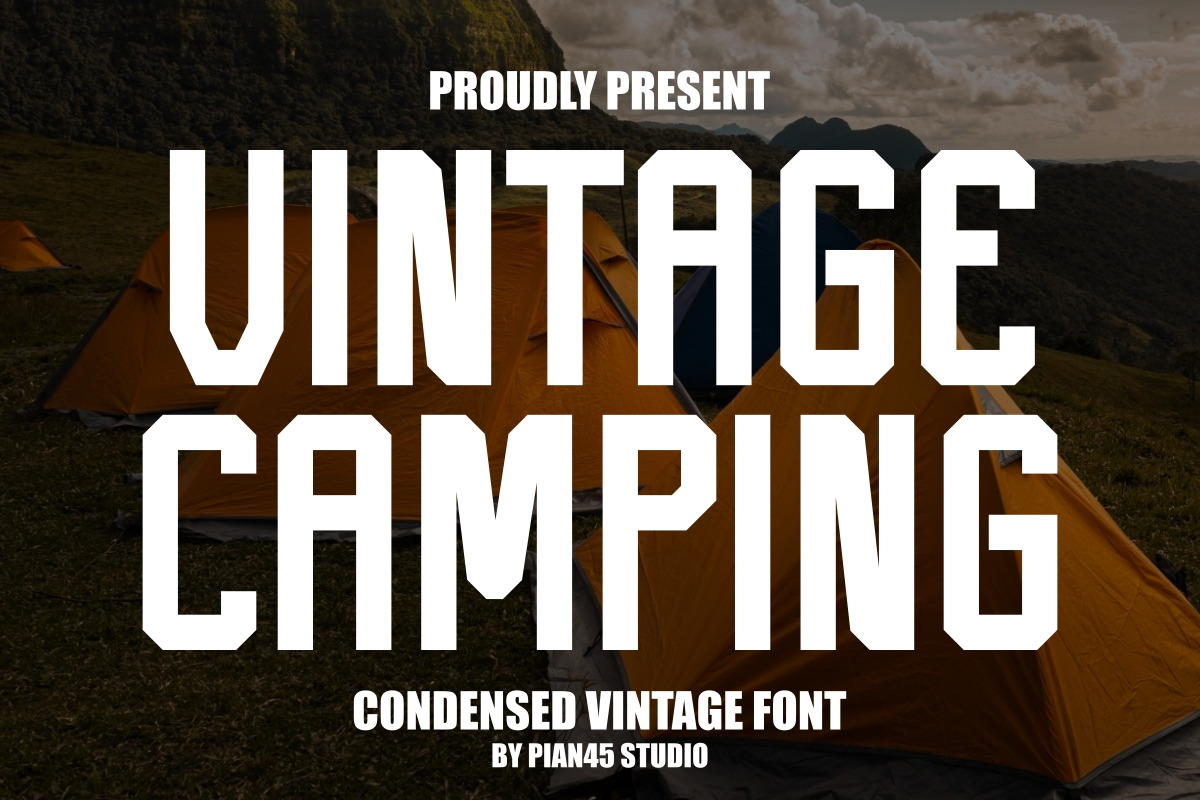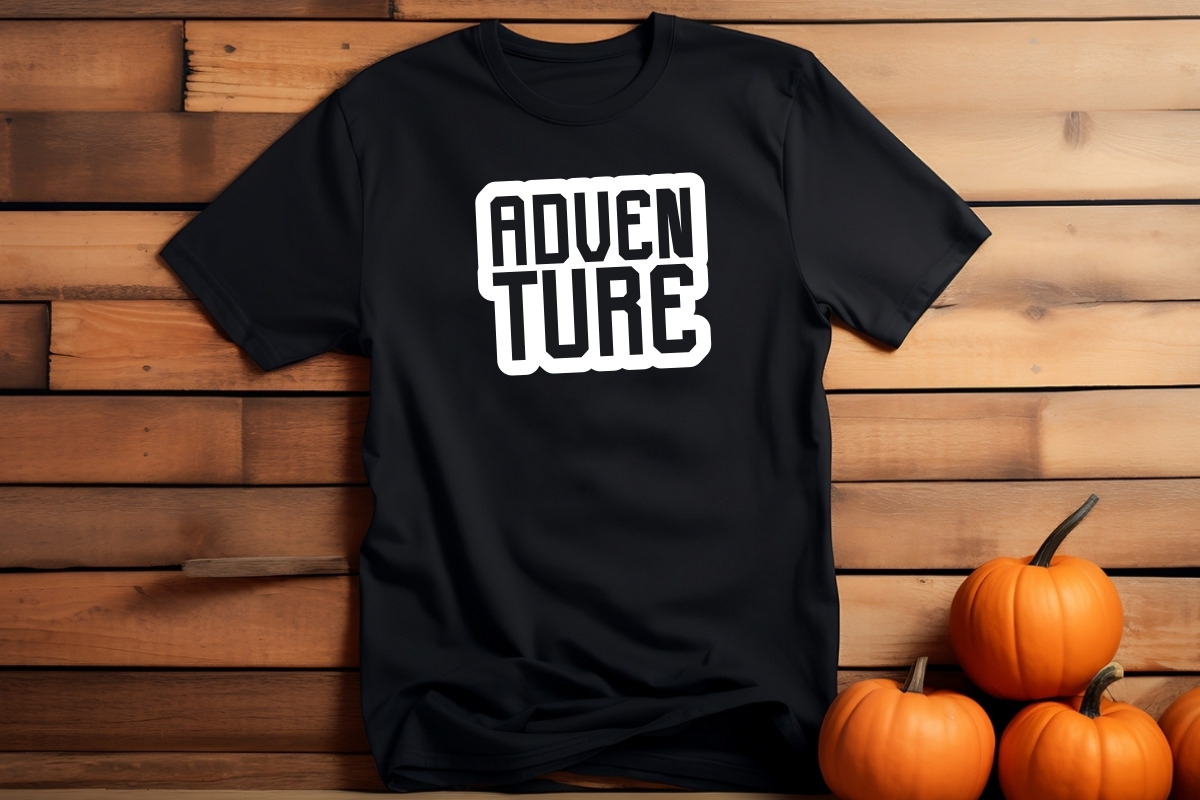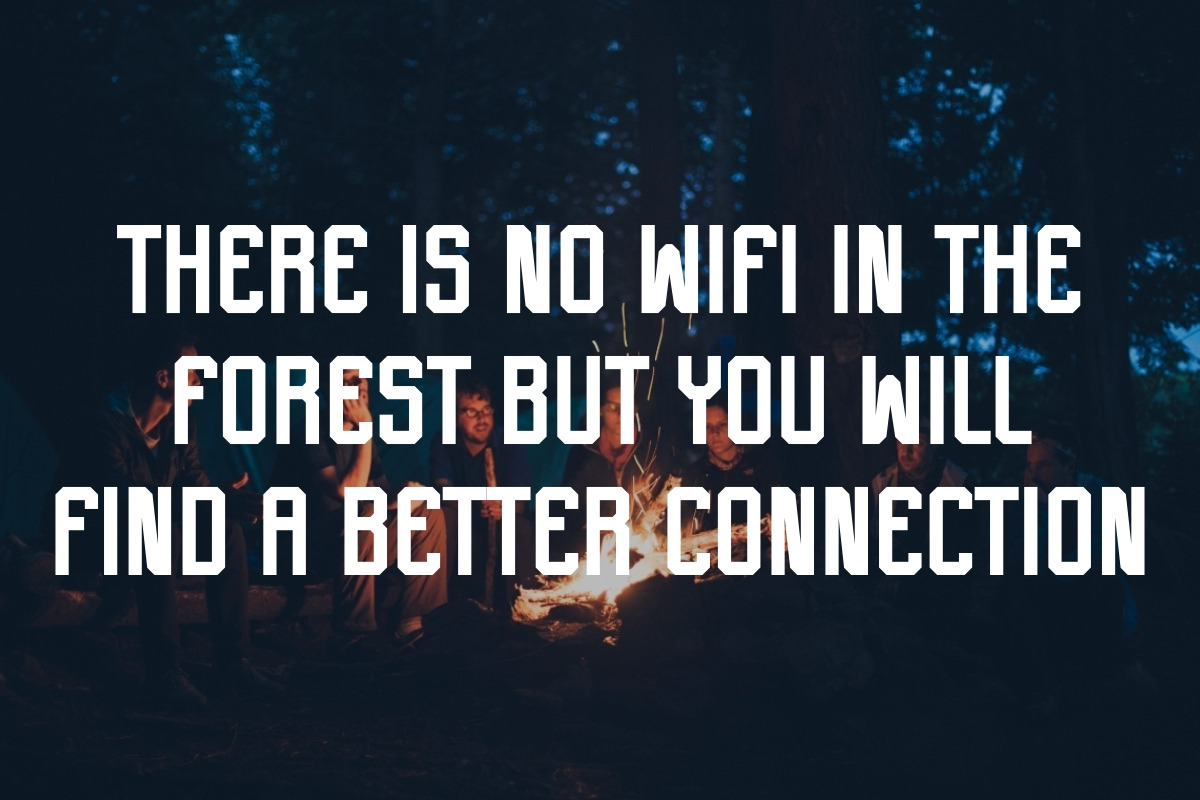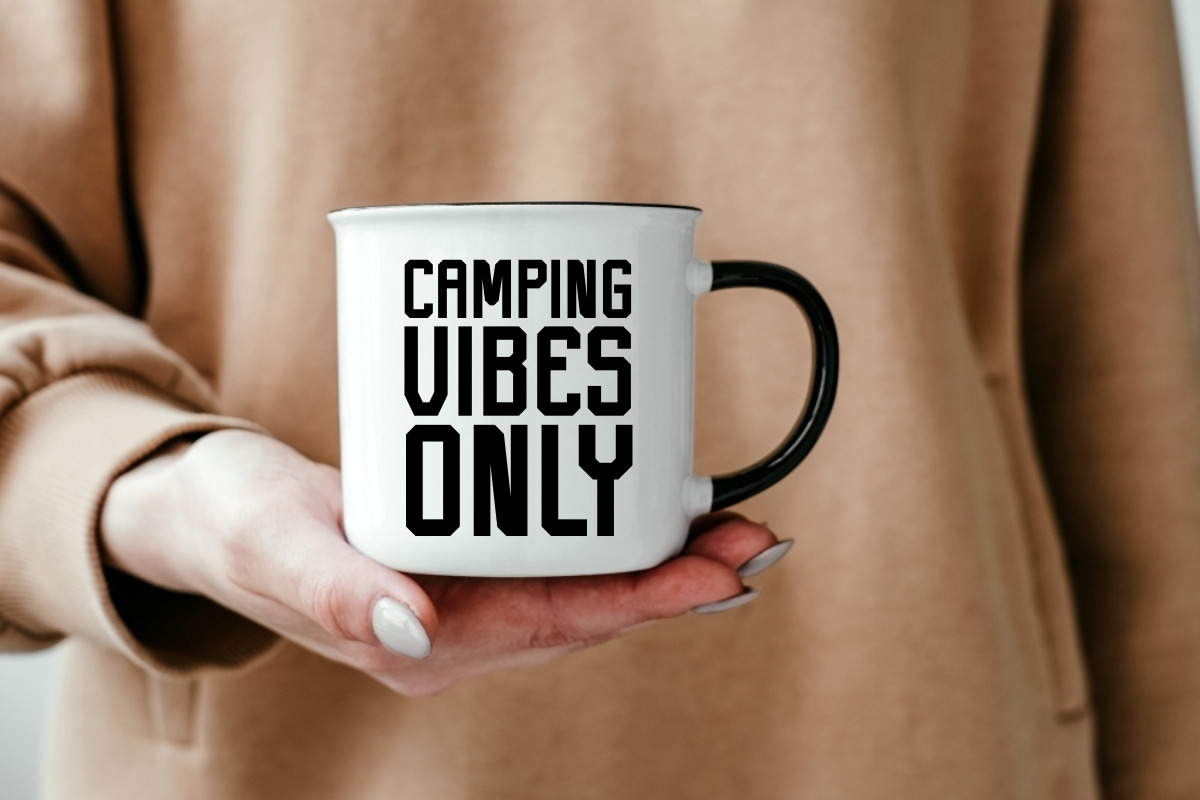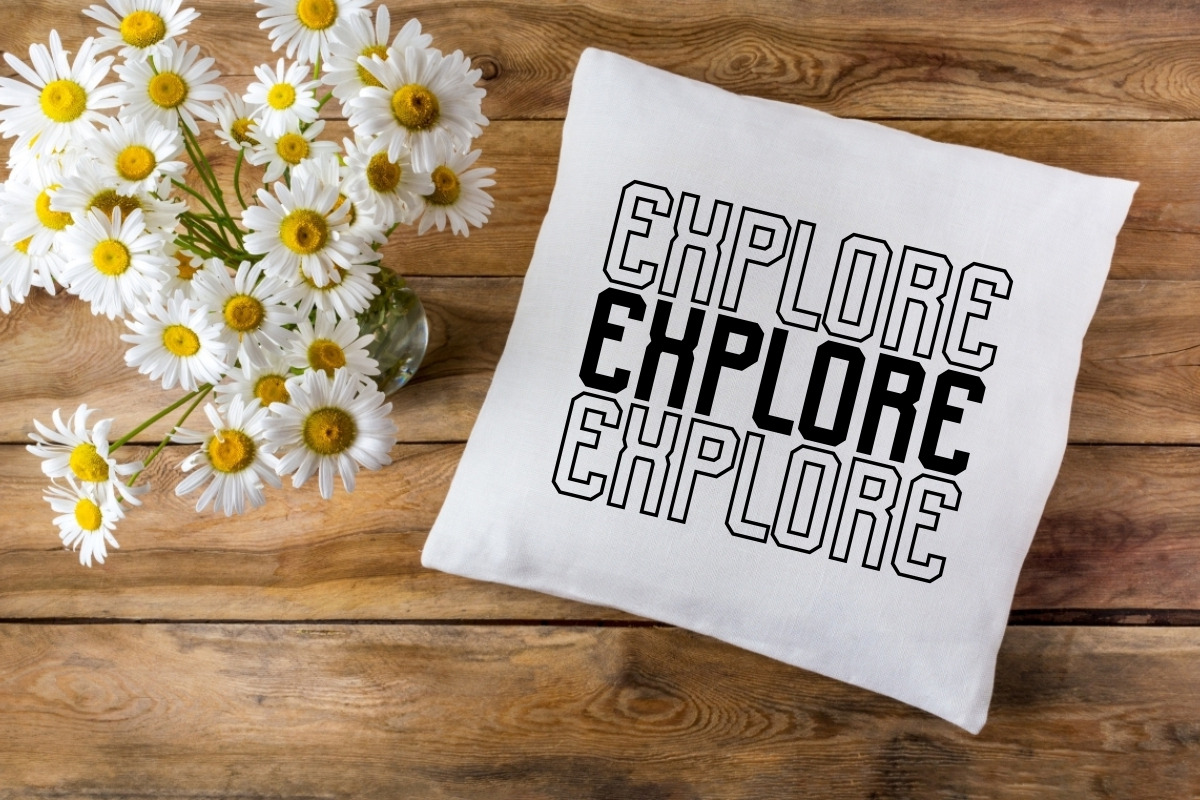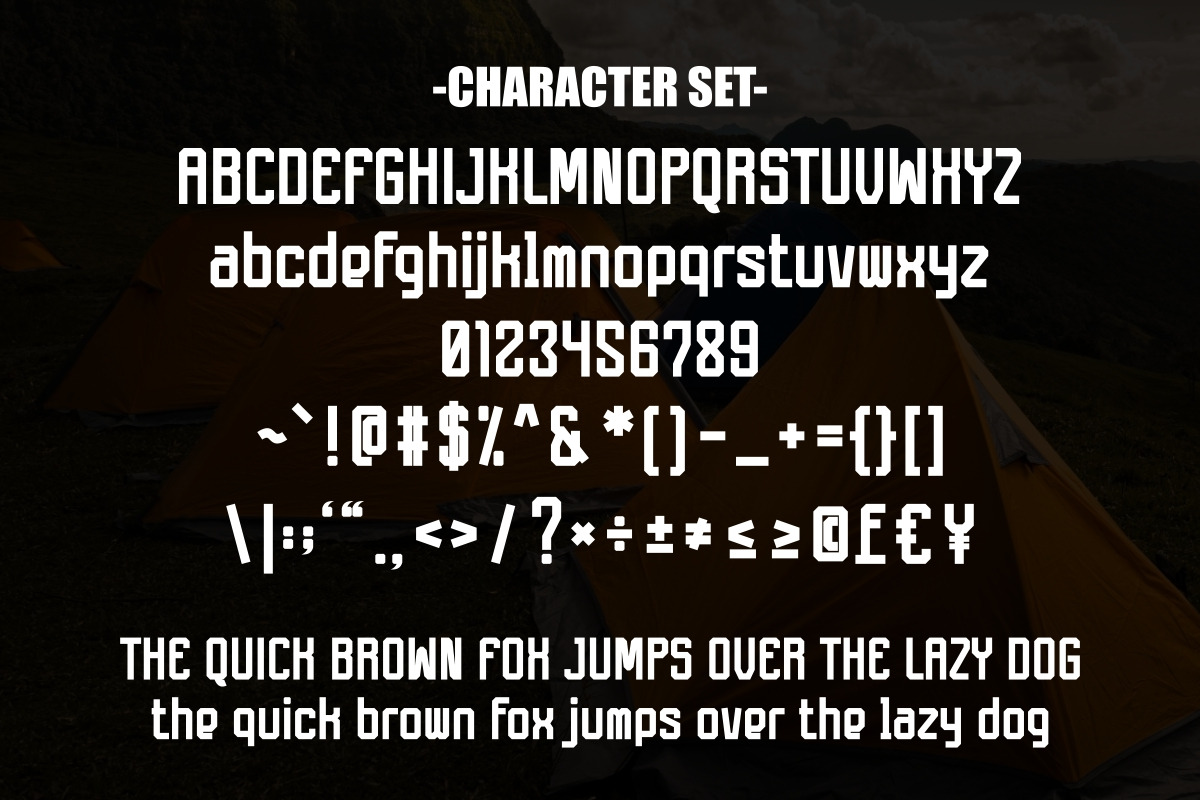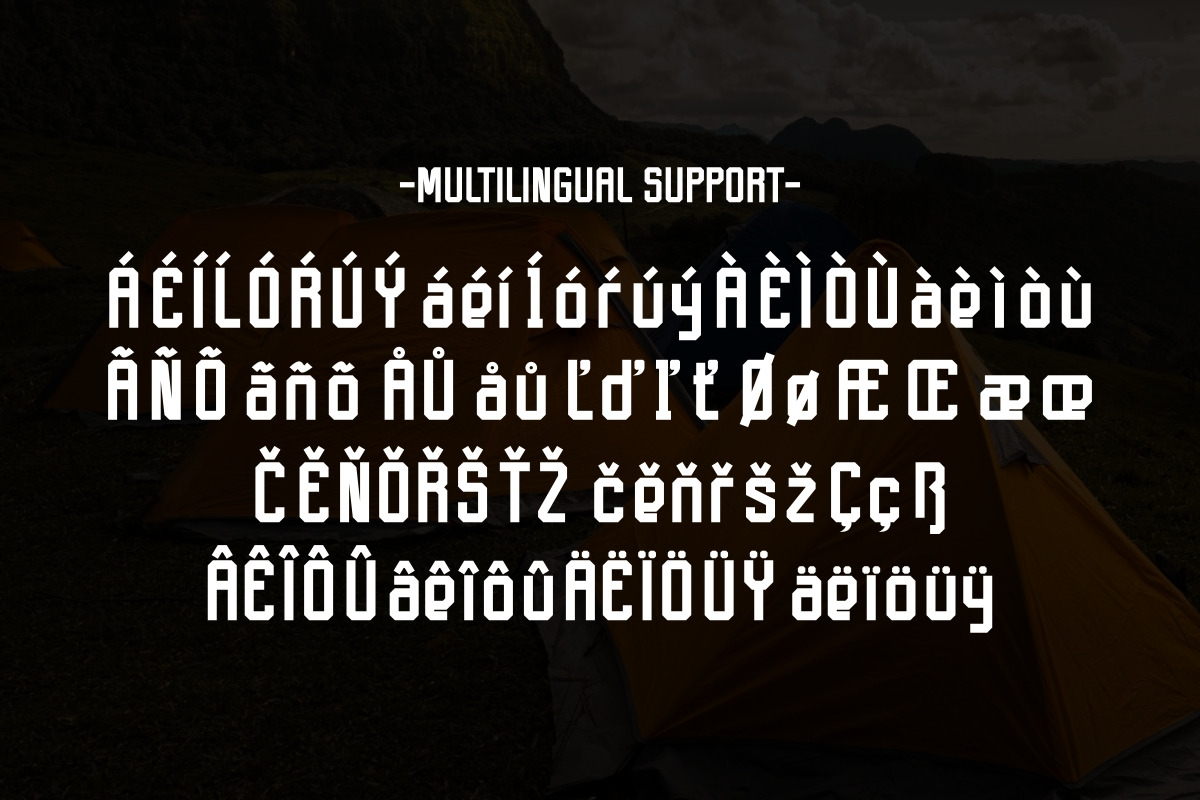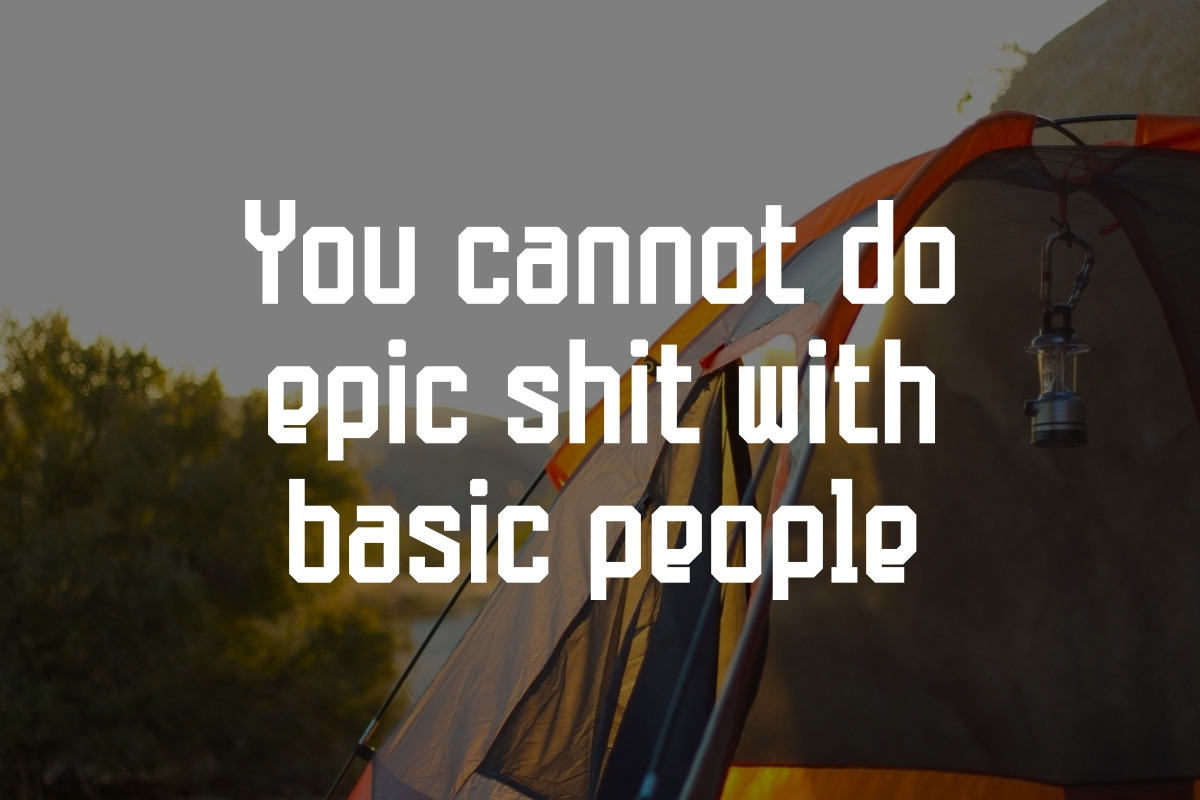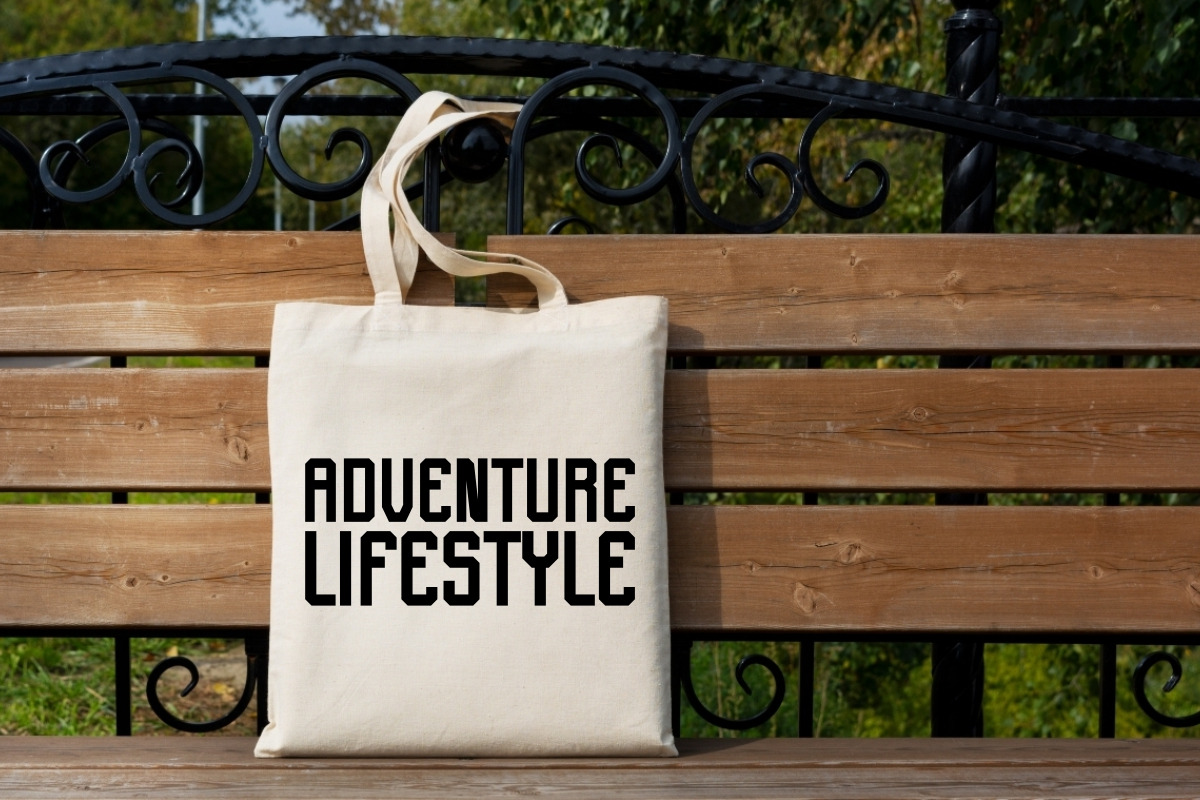
Vintage Camping - Condensed Font
Vintage Camping is a clean and condensed vintage sans serif typeface that exudes elegance and luxury. This font combines with timeless charm and sophistication to make impression with every creation. Perfect for quotes, posters, backgrounds, t-shirts, mugs, tote bags, pillows and sportwear.